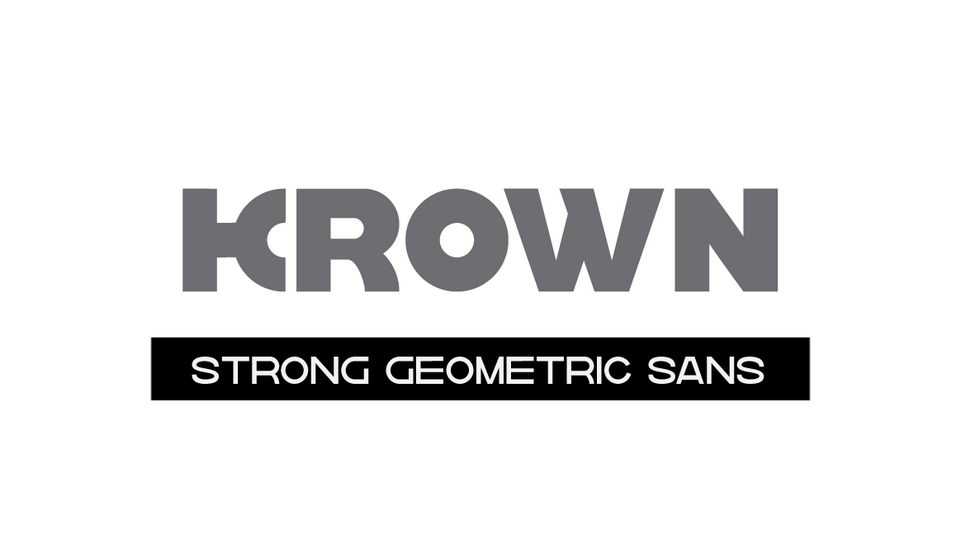
Download Krown typeface, a modern strong geometric sans serif font family in three weights with matched Obliques. Krown fonts perfectly fit for eye-catching posters, bold headlines, signage and other artworks.
Designer: Sigit Nur Wicaksono